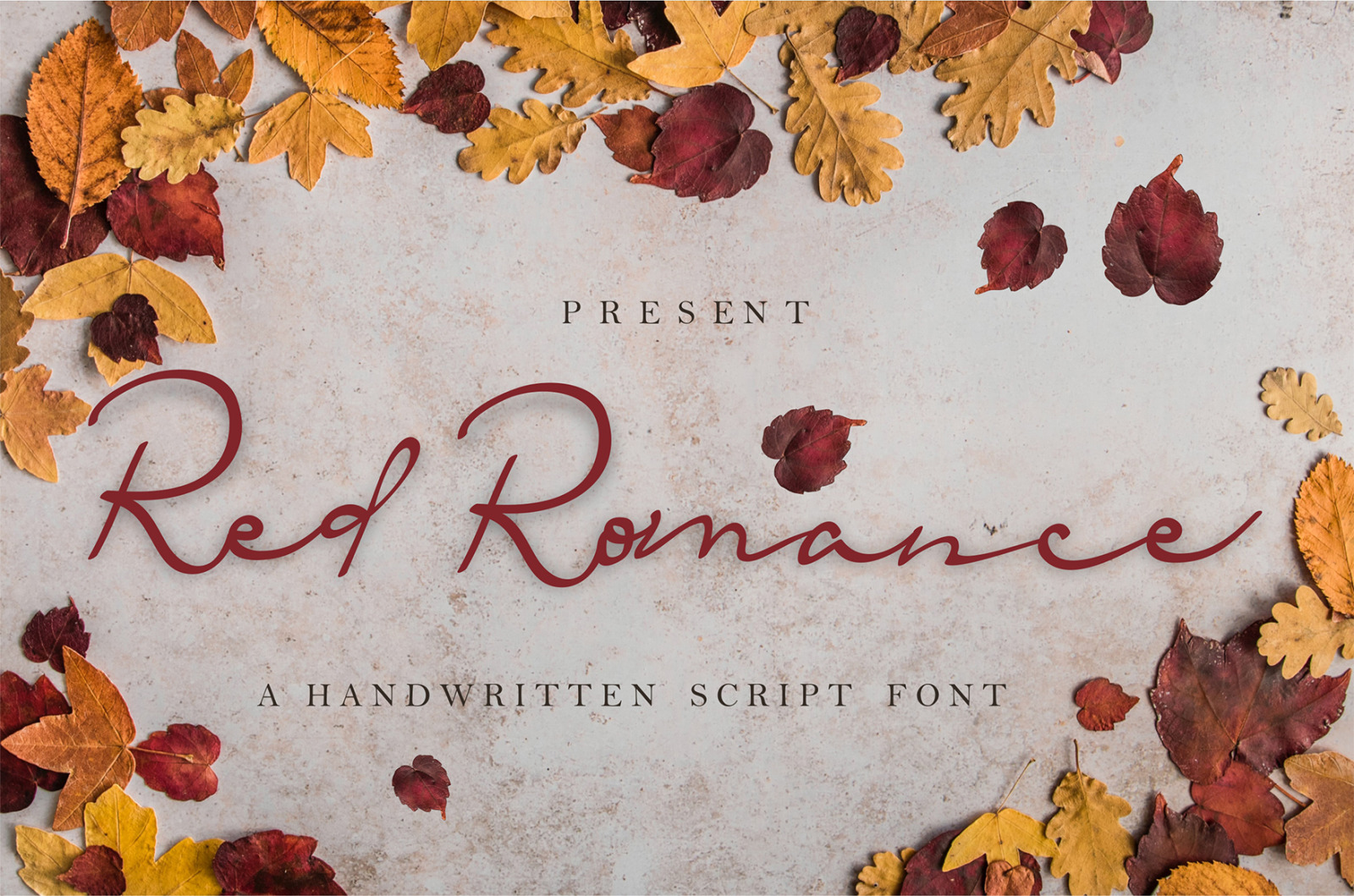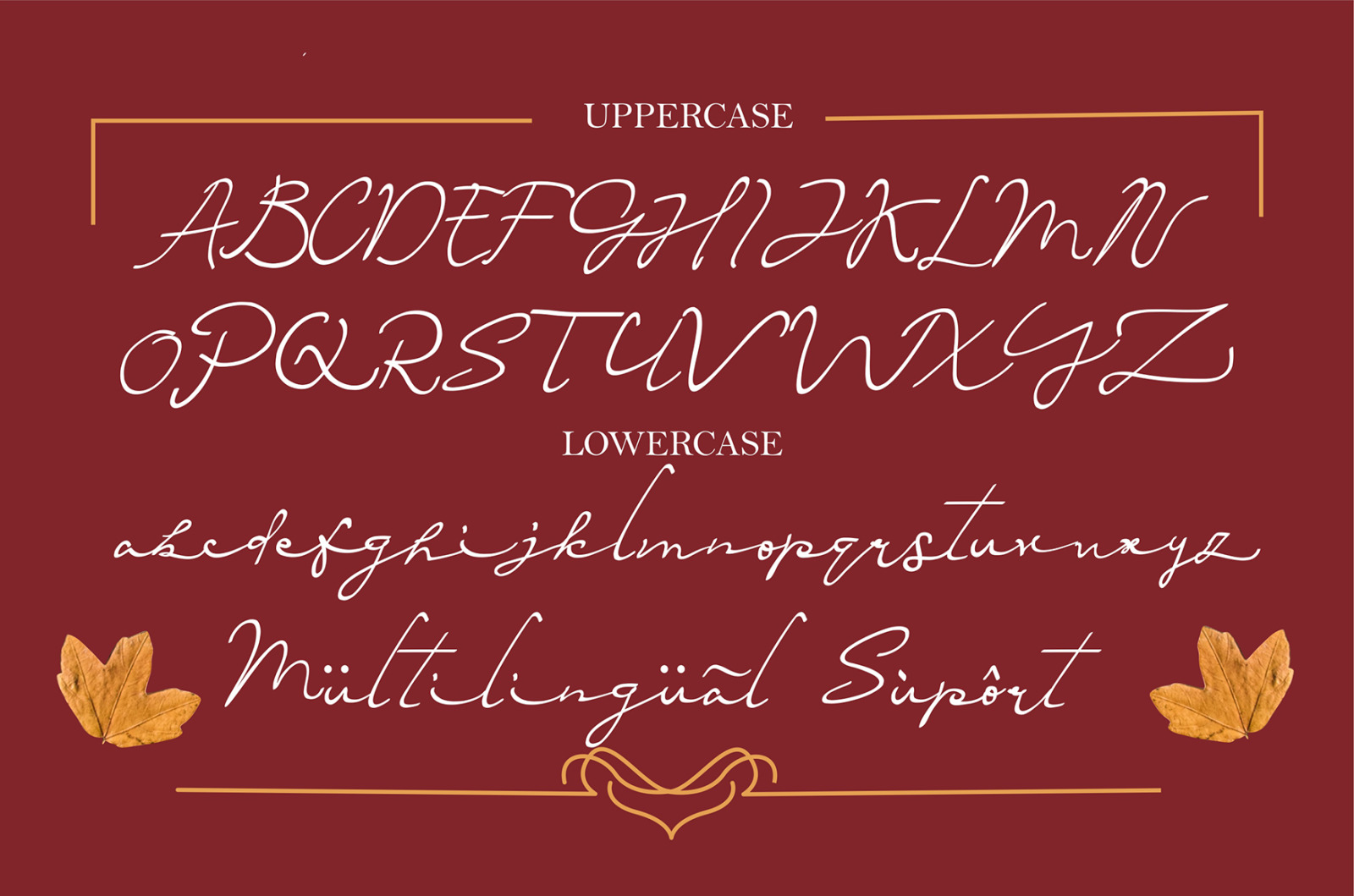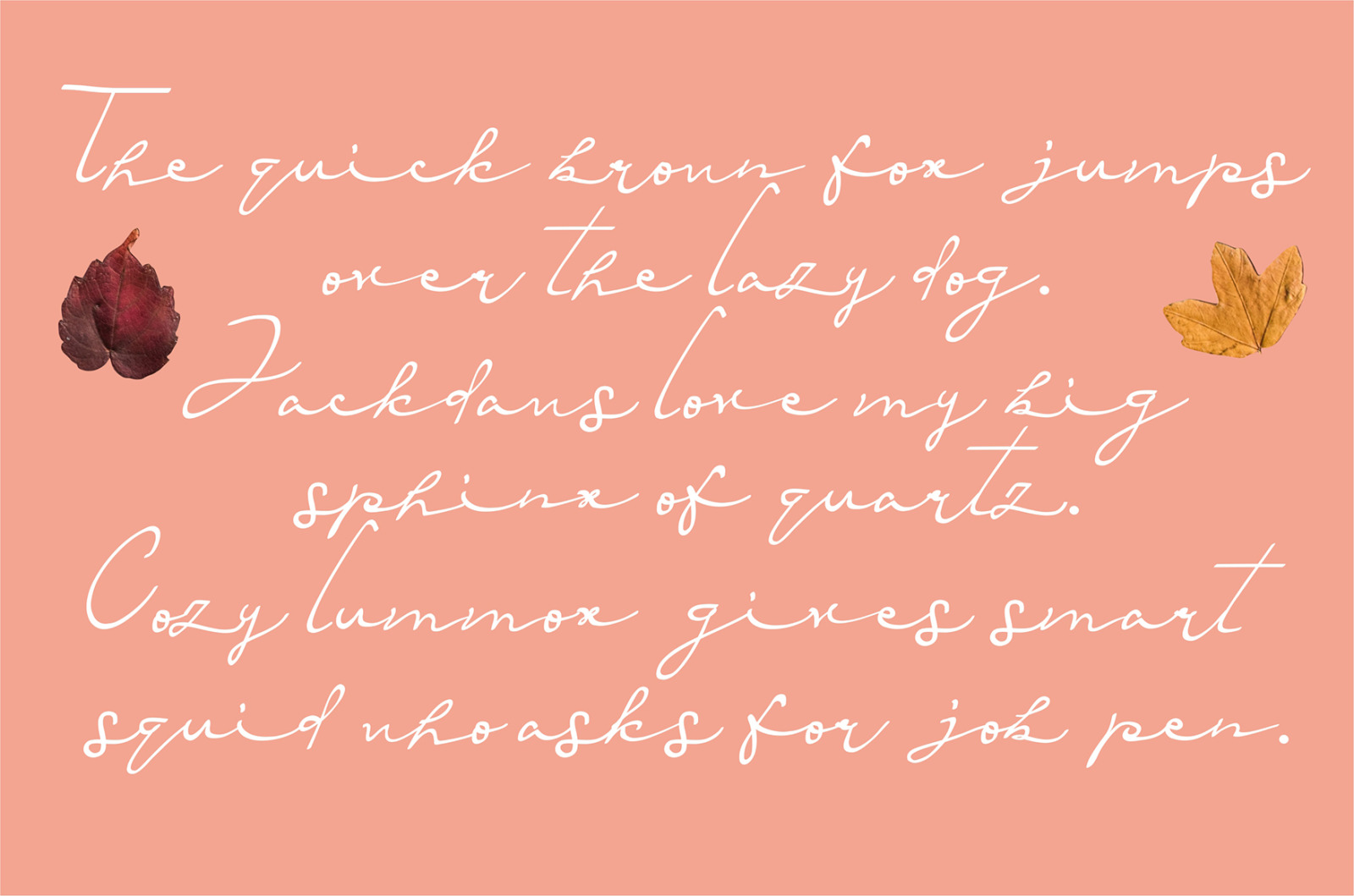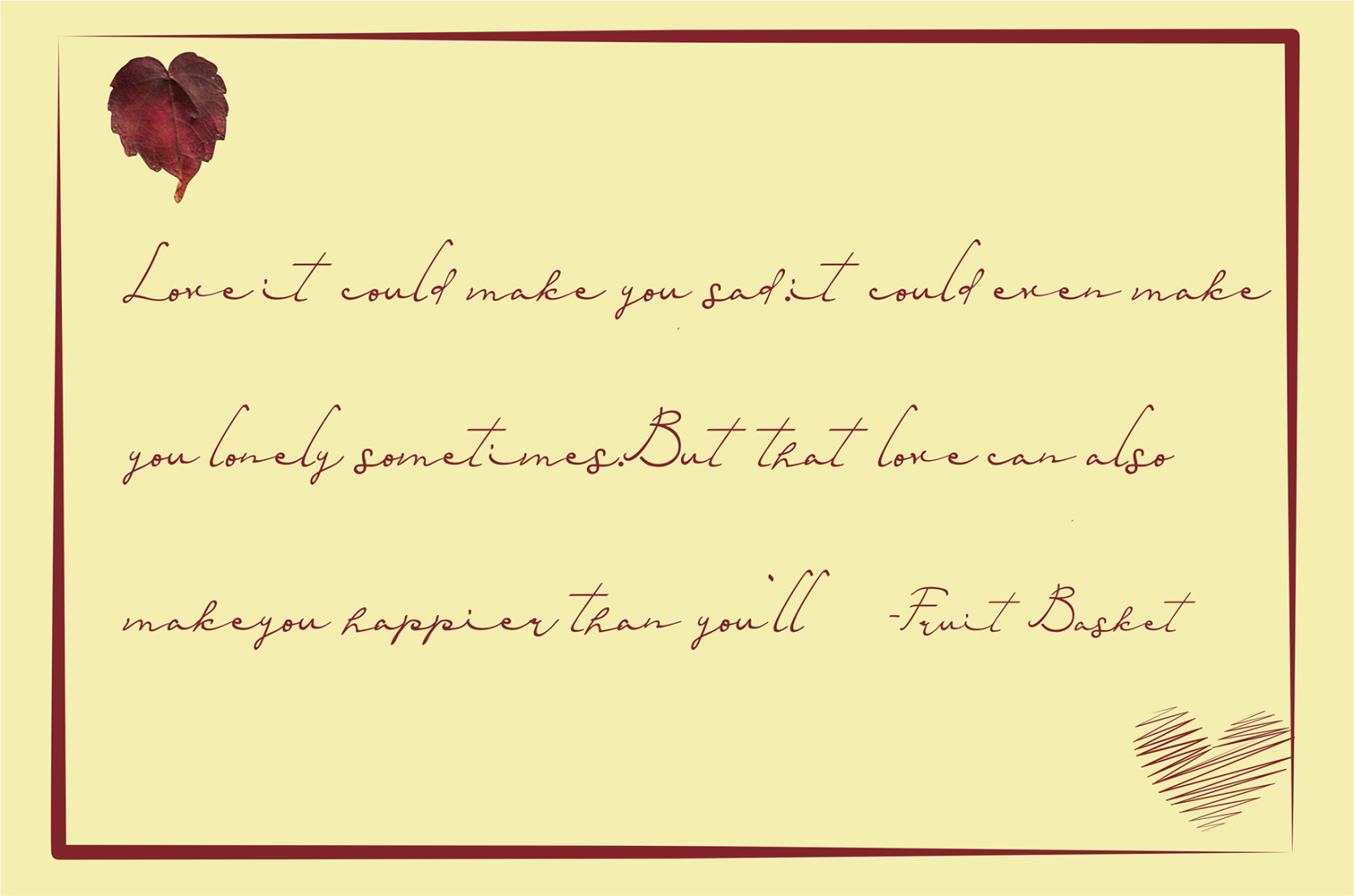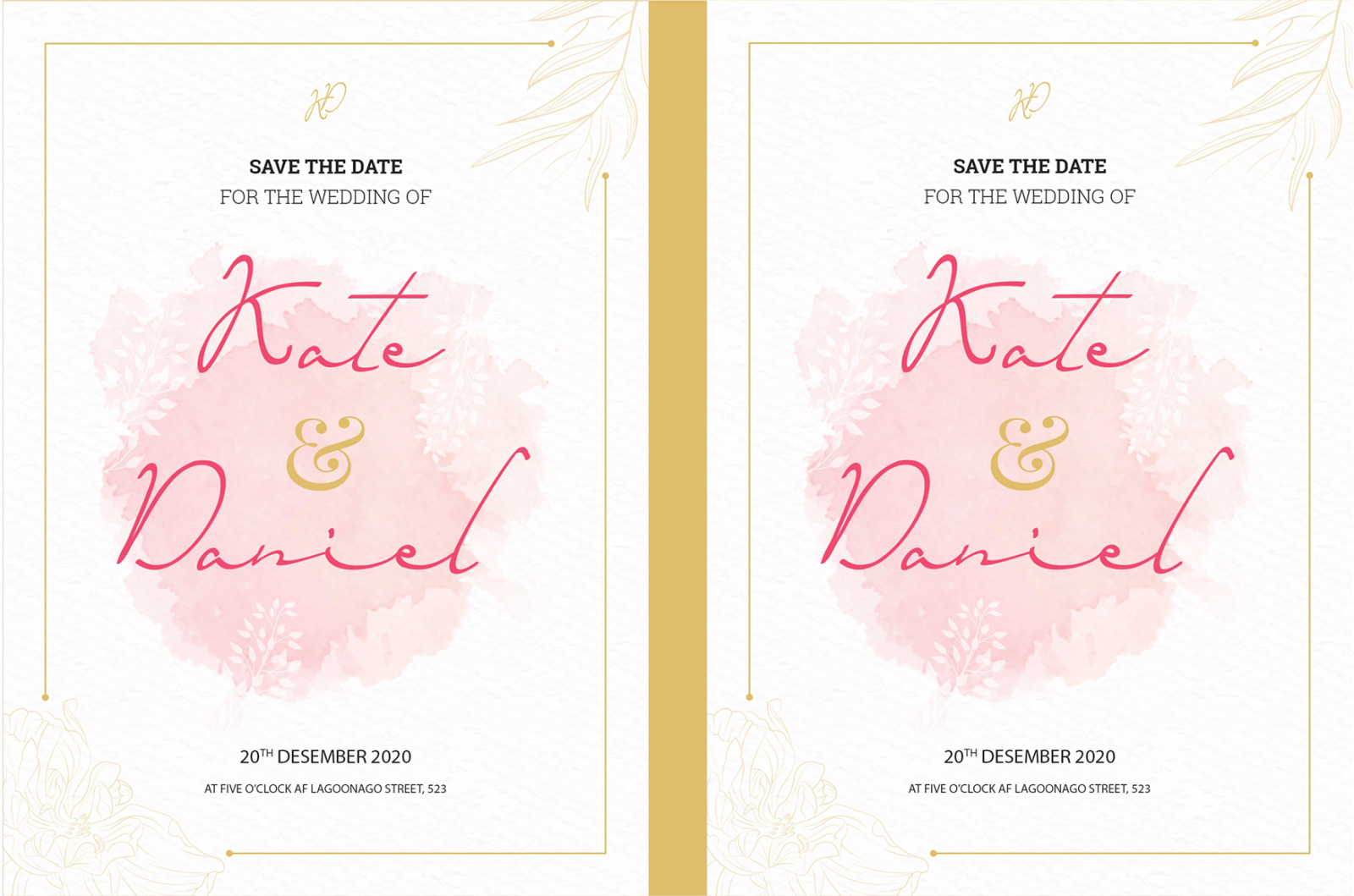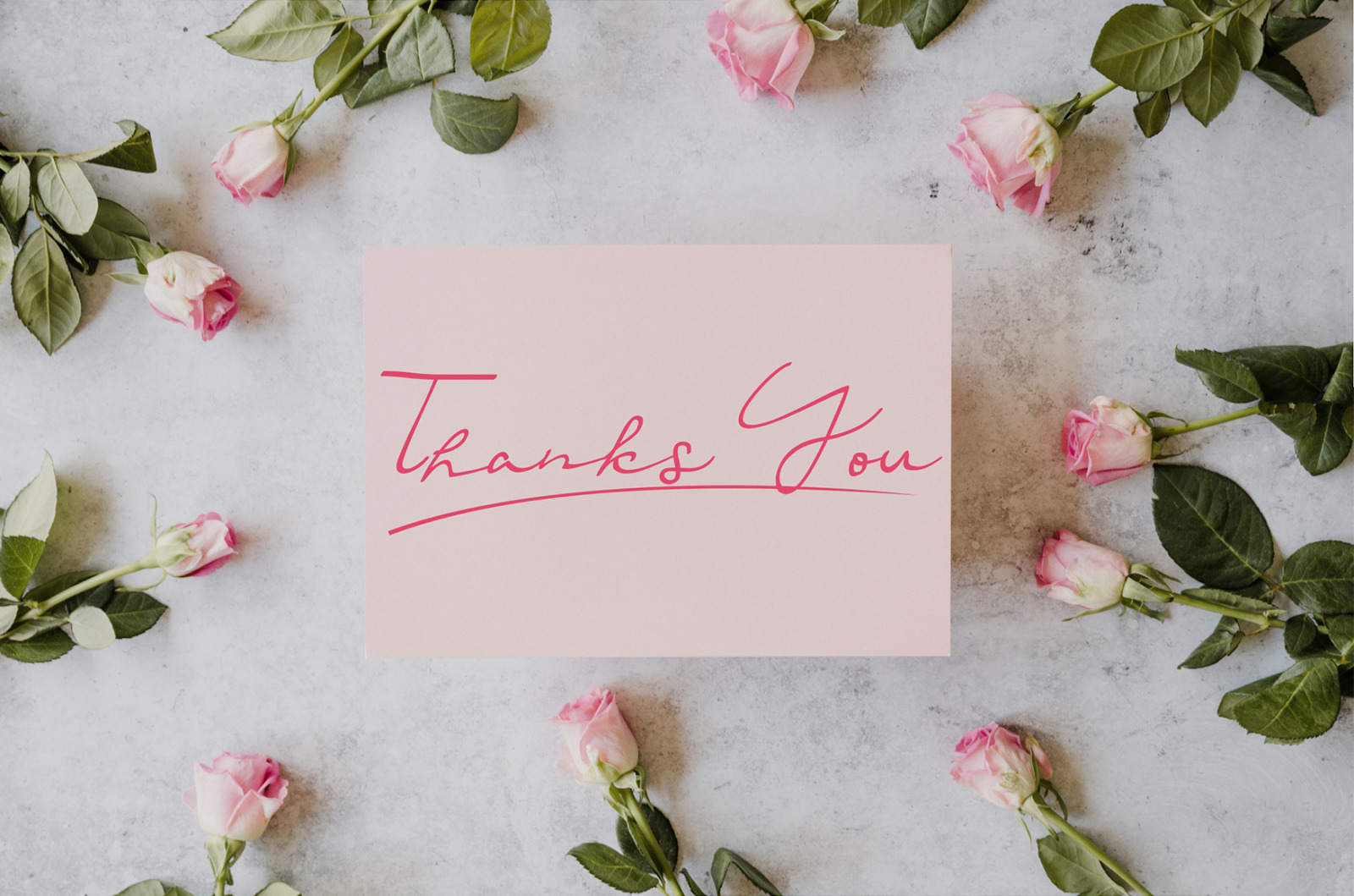
Red Romance Font
Red Romance is a signature decorative font with which you can achieve a handwritten-type lettering feeling. This signature style is perfect for your
modern graphic design needs. This font has a really nice flow so you use it in a large text if you want to give them a touch of personality. It can be used on social media content, for branding or packaging.
Also, Red Romance Signature is the ideal typeface for organic product branding and packaging. Additionally, you can use Broterside signature romantic vibes for wedding invitation designs. Especially if you are looking for a font for Instagram quote posts or any other social media content, this typeface is for you